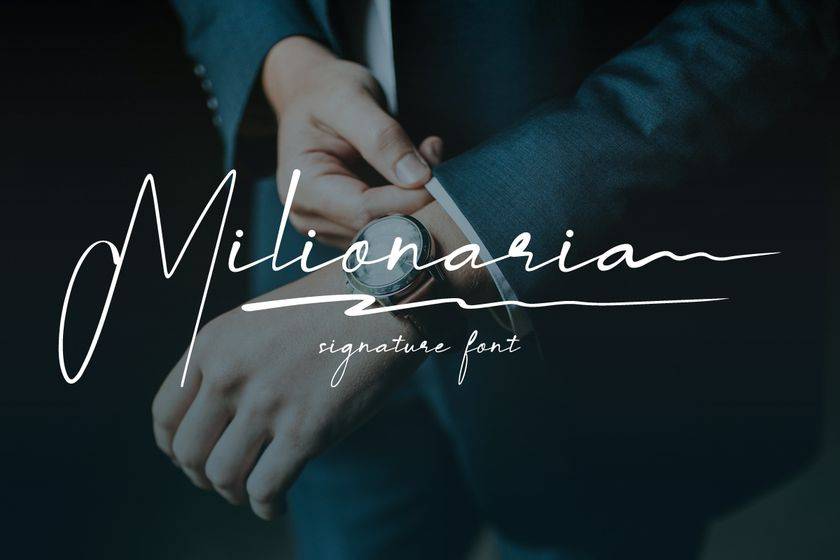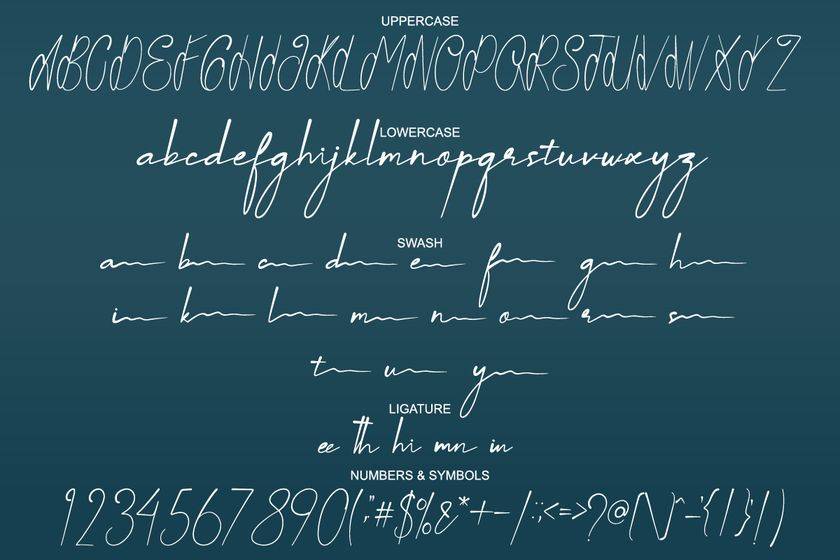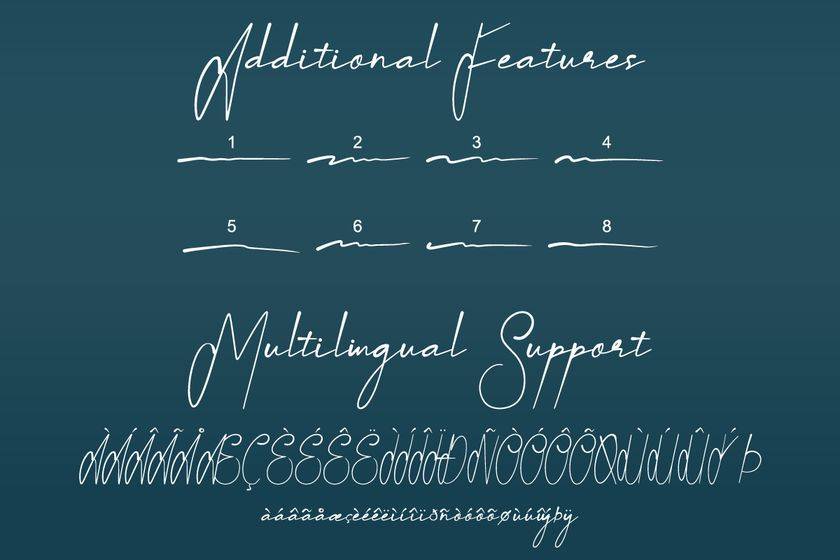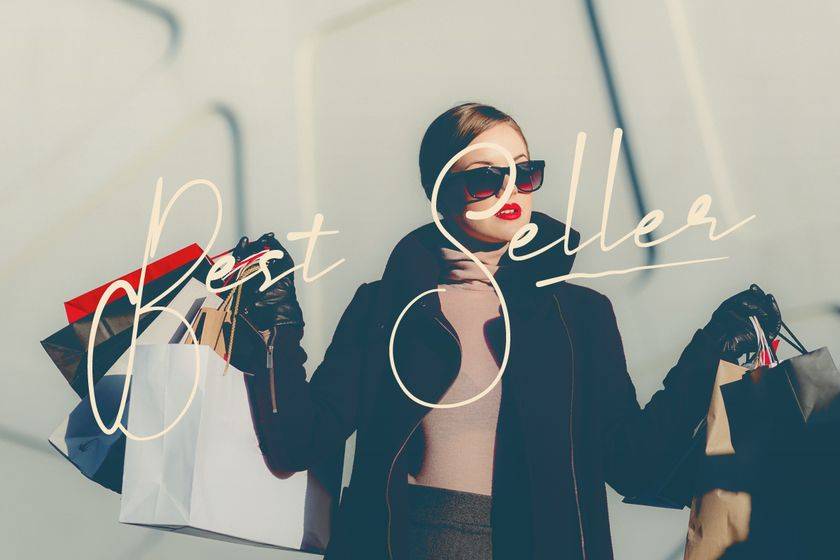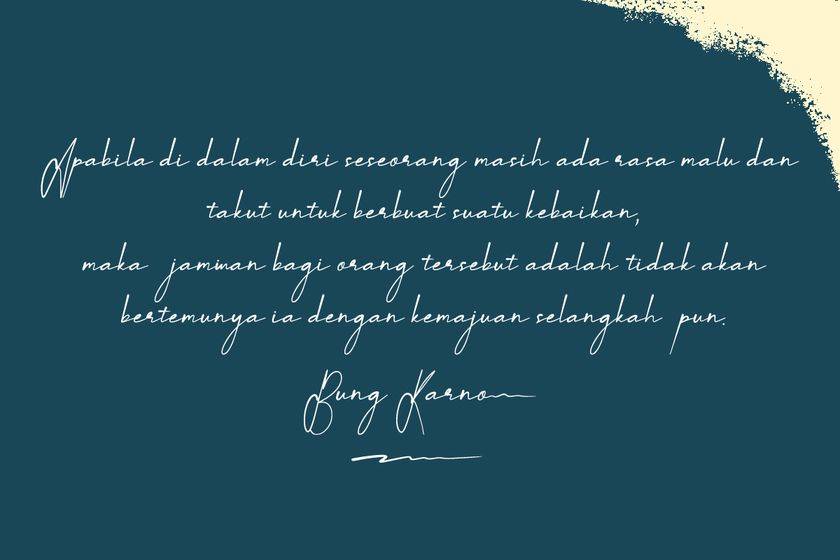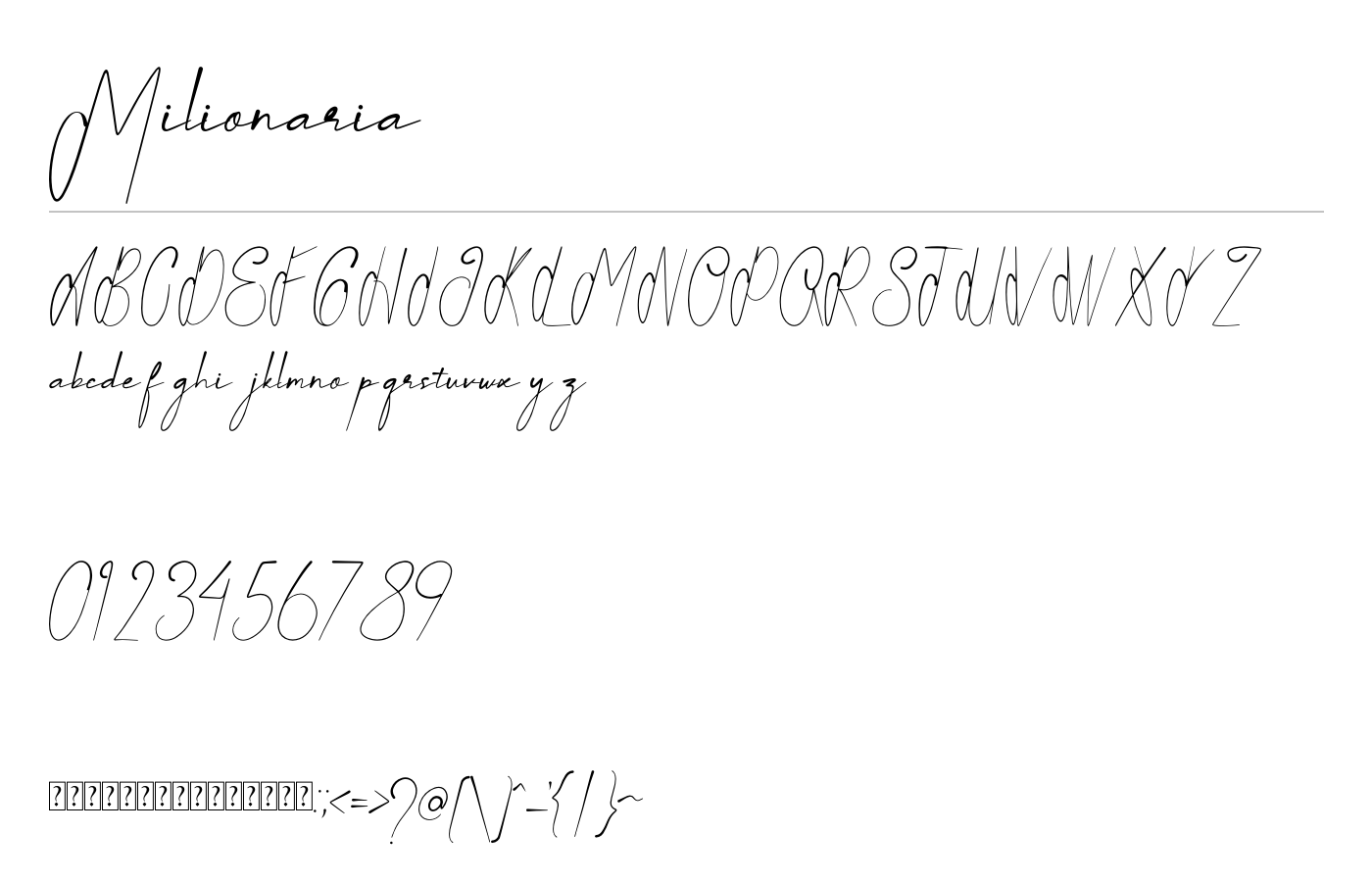
Milionaria is a delicate, elegant script font characterized by its thin, flowing lines and graceful, handwritten style. Its tall, slender letterforms and subtle variations in stroke weight give it a refined and sophisticated feel, making it ideal for luxury branding, wedding invitations, and stylish editorial designs where a personal yet classy touch is desired. This font works best in large sizes for headlines or decorative text, where its fine details and airy spacing can truly shine.
| Font family | Milionaria Font |
| Designer | I Wayan Wisna Wijaya |